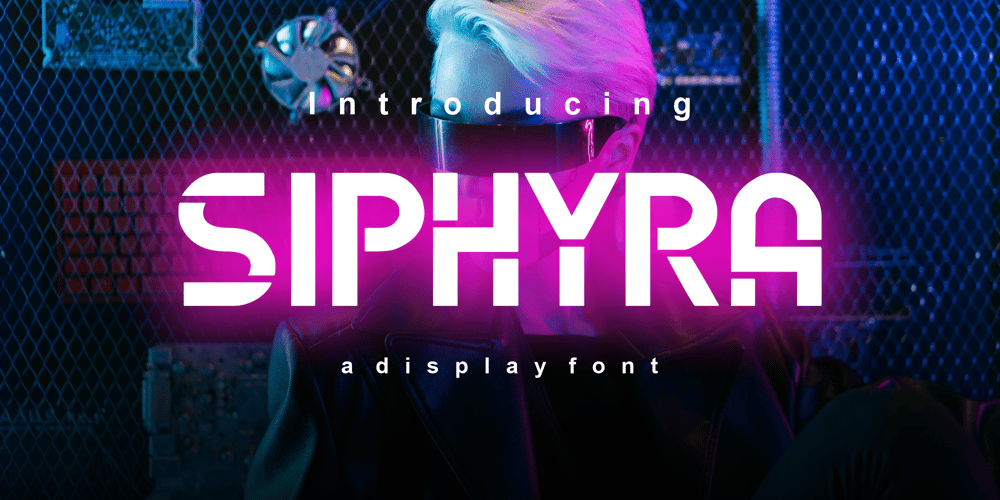
Siphyra Font Family was designed by Yoga Dwi Cahyono and published by Pitvlas Type. Siphyra contains 1 styles and family package options. Siphyra fonts stand out with their clean, geometric design, offering exceptional clarity and readability. Their simple yet modern characteristics, with sharp lines and consistent proportions, convey a futuristic and professional feel. Ideal for user interfaces, branding, and technical documentation, these fonts reflect progress and innovation, and are versatile for various digital applications. Their ability to combine functionality with aesthetics makes them a top choice for conveying a sense of modernity and precision.–Uppercase